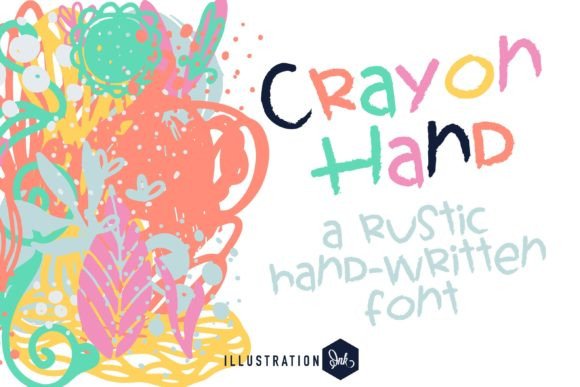
Crayon Hand Font: Elevate Your Creations with a Touch of Childhood Charm
In the world of typography, fonts play a crucial role in conveying the tone and personality of a brand, product, or creative project. With the vast array of fonts available, it can be challenging to find the perfect one that stands out from the crowd. However, if you’re looking for a font that adds a touch of childhood charm and whimsy to your creations, look no further than the Crayon Hand Font.
What is Crayon Hand Font?
Crayon Hand is a textured, handwritten font that has the look and feel of crayon on textured paper. This unique font is designed to mimic the imperfections and irregularities of hand-drawn text, giving it a warm and inviting feel. The Crayon Hand Font is perfect for a wide range of creative projects, from branding and advertising to packaging and editorial design.
The Benefits of Using Crayon Hand Font
No matter the topic, the Crayon Hand Font will be an incredible asset to your fonts’ library. Its unique texture and handwritten feel have the potential to elevate any creation, adding a touch of personality and whimsy that sets it apart from more traditional fonts. Here are just a few benefits of using the Crayon Hand Font:
- Emotional Connection: The Crayon Hand Font has a way of evoking emotions and memories of childhood. Its playful and whimsical feel can help create an emotional connection with your audience, making your brand or product more relatable and memorable.
- Versatility: The Crayon Hand Font is incredibly versatile, making it suitable for a wide range of creative projects. Whether you’re designing a logo, creating a brochure, or developing a website, this font can add a touch of personality and charm to your work.
- Uniqueness: In a world where many fonts are sleek and modern, the Crayon Hand Font stands out for its unique texture and handwritten feel. This font can help your brand or product differentiate itself from the competition, making it more noticeable and memorable.
How to Use Crayon Hand Font Effectively
While the Crayon Hand Font is a beautiful and unique font, it may not be suitable for every project. Here are a few tips for using the Crayon Hand Font effectively:
- Pair with a Simple Font: To create visual interest and hierarchy, pair the Crayon Hand Font with a simple, sans-serif font. This will help create contrast and make your text more readable.
- Use for Headings and Titles: The Crayon Hand Font is perfect for headings and titles, where its unique texture and handwritten feel can add a touch of personality and charm. Use a simpler font for body text to create contrast and improve readability.
- Experiment with Colors: The Crayon Hand Font looks beautiful in a range of colors, from bright and bold to pastel and soft. Experiment with different colors to find the perfect combination for your project.
The Design Process Behind Crayon Hand Font
The Crayon Hand Font was designed to mimic the look and feel of crayon on textured paper. The design process involved creating a font that was imperfect and handwritten, with a unique texture that would add a touch of personality and charm to any project.
The designer used a combination of traditional and digital techniques to create the font. They began by drawing the letters by hand, using a crayon on textured paper. The letters were then scanned and imported into a digital design program, where they were refined and edited to create a cohesive and consistent font.
| Font Name | Crayon Hand Font |
| Author | Illustration Ink |
The Crayon Hand Font is a unique and beautiful font that can add a touch of childhood charm and whimsy to any creative project. Its textured, handwritten feel and imperfections make it a warm and inviting font that can help create an emotional connection with your audience. Whether you’re a designer, artist, or marketer, the Crayon Hand Font is an incredible asset to your fonts’ library, with the potential to elevate any creation and make it more memorable and engaging.